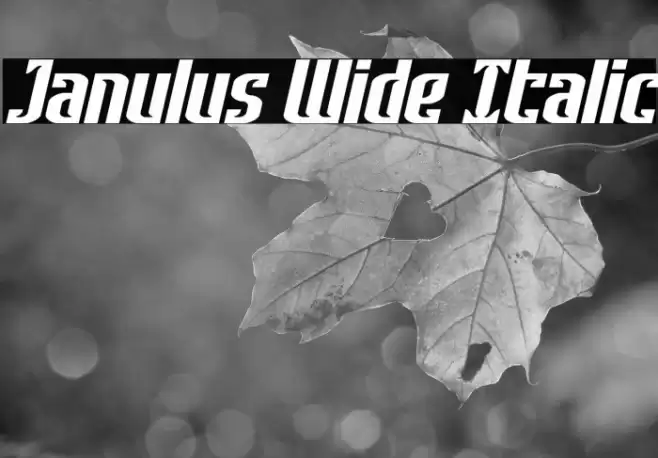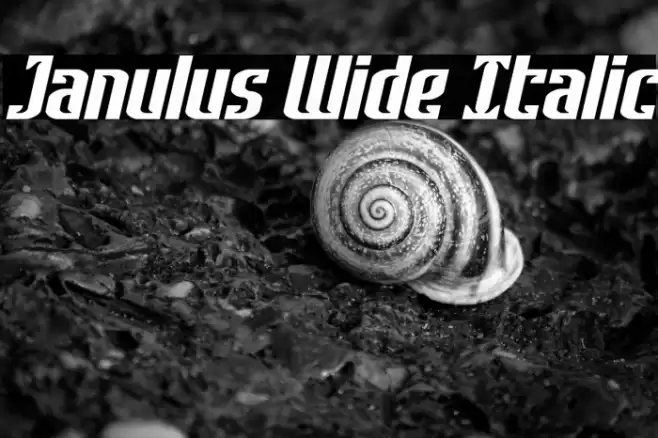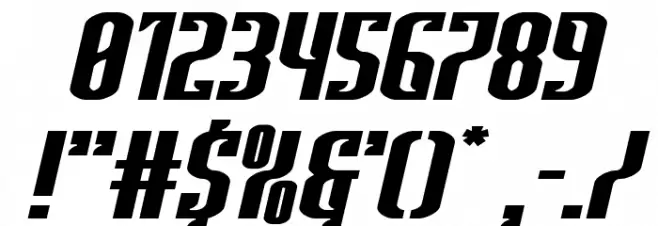
Janulus Wide Italic Font
Janulus Wide Italic Description
This font features a bold and dynamic style with a distinctly italicized slant, giving it a sense of movement and energy. The characters are wide and have a strong presence, making them ideal for attention-grabbing designs. The strokes are consistent in thickness, providing a uniform appearance across all characters. The angular cuts and sharp edges contribute to a modern and edgy look, while the wide spacing between characters ensures readability even at smaller sizes. This font is well-suited for projects that require a bold statement and a contemporary feel.
A bold, wide, and italicized font with a modern and dynamic style from Uncategorized fonts.
- Proposed Projects: Ideal for headlines, posters, branding, and advertising where a strong and modern impact is desired.
- Width: Expanded
- Character Spacing: Wide